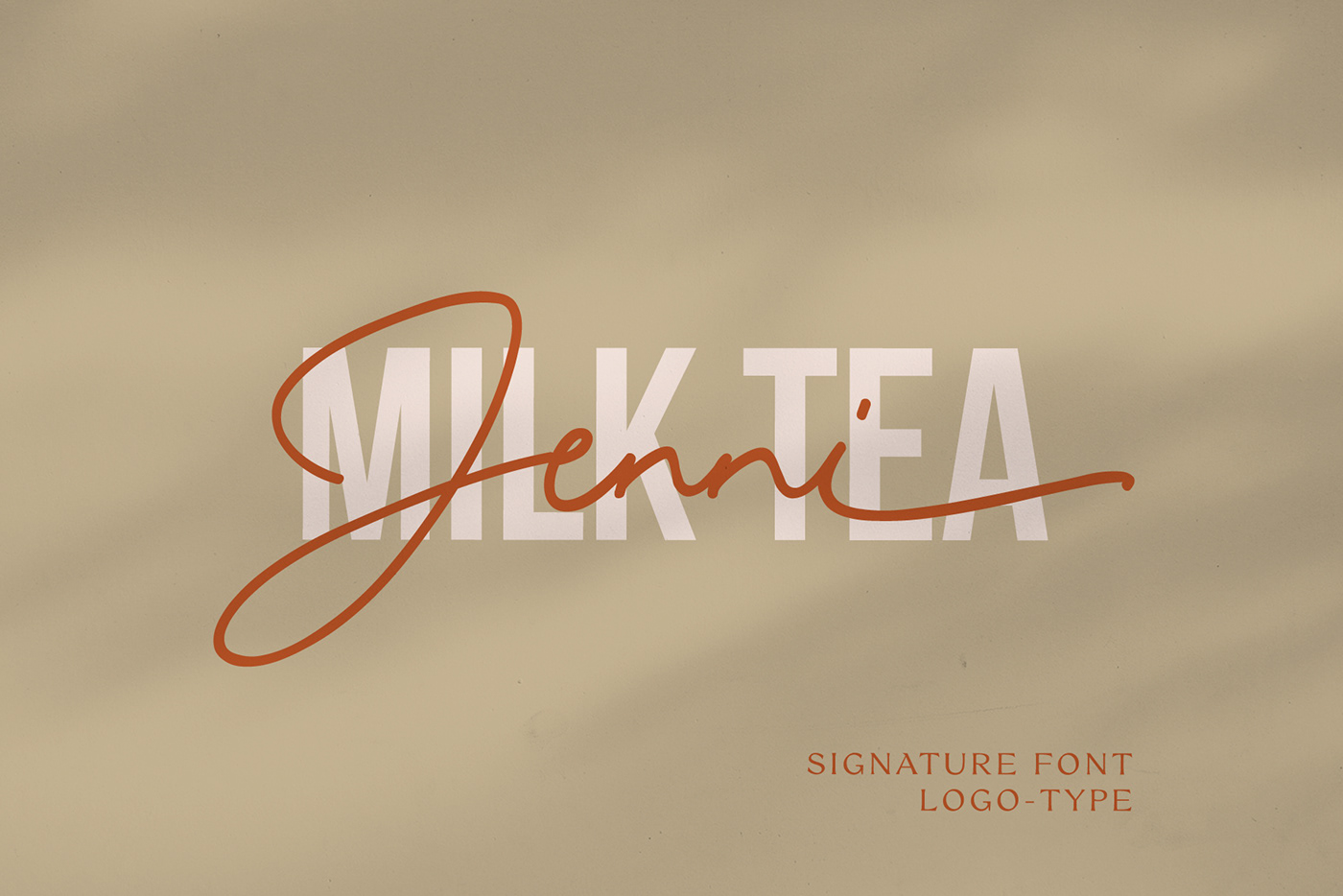
Renissa Signature Font is a modern handwritten font that feels beautiful classy, elegant, and modern. It is perfectly suited for a wide variety of projects, as to signature, stationery, logo, wedding, typography quotes, magazine or book cover, website header, clothing, branding, packaging design and more.